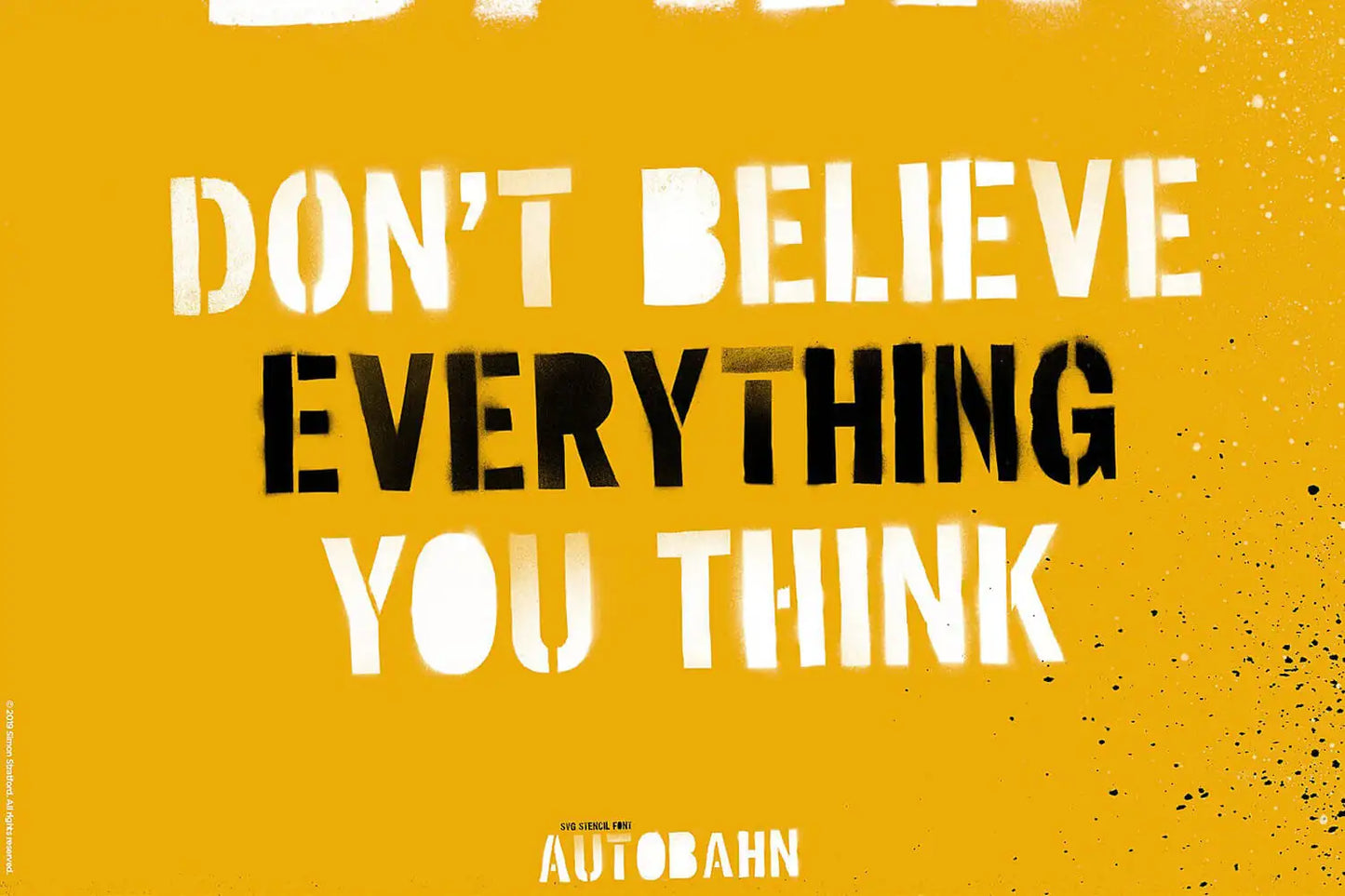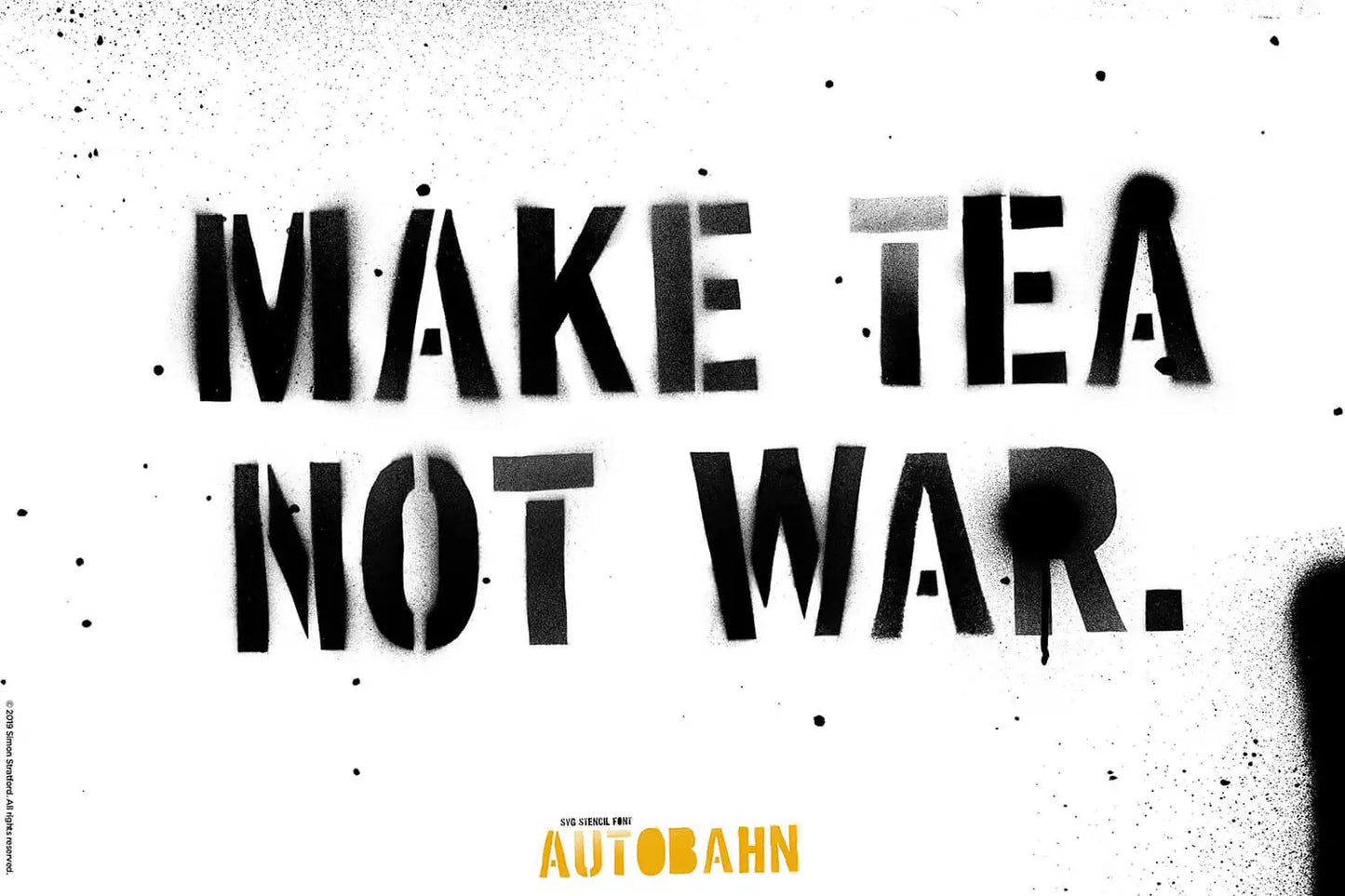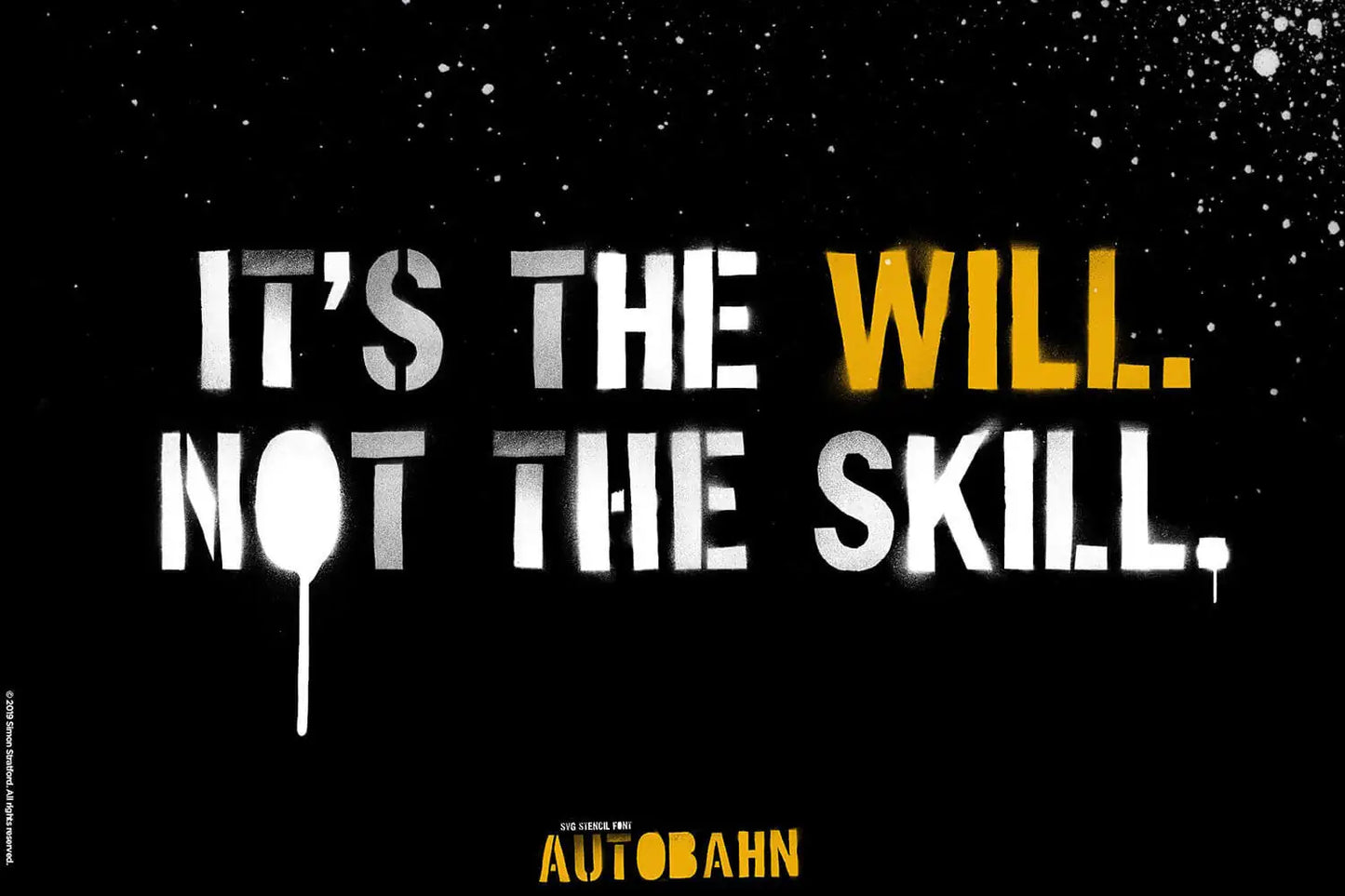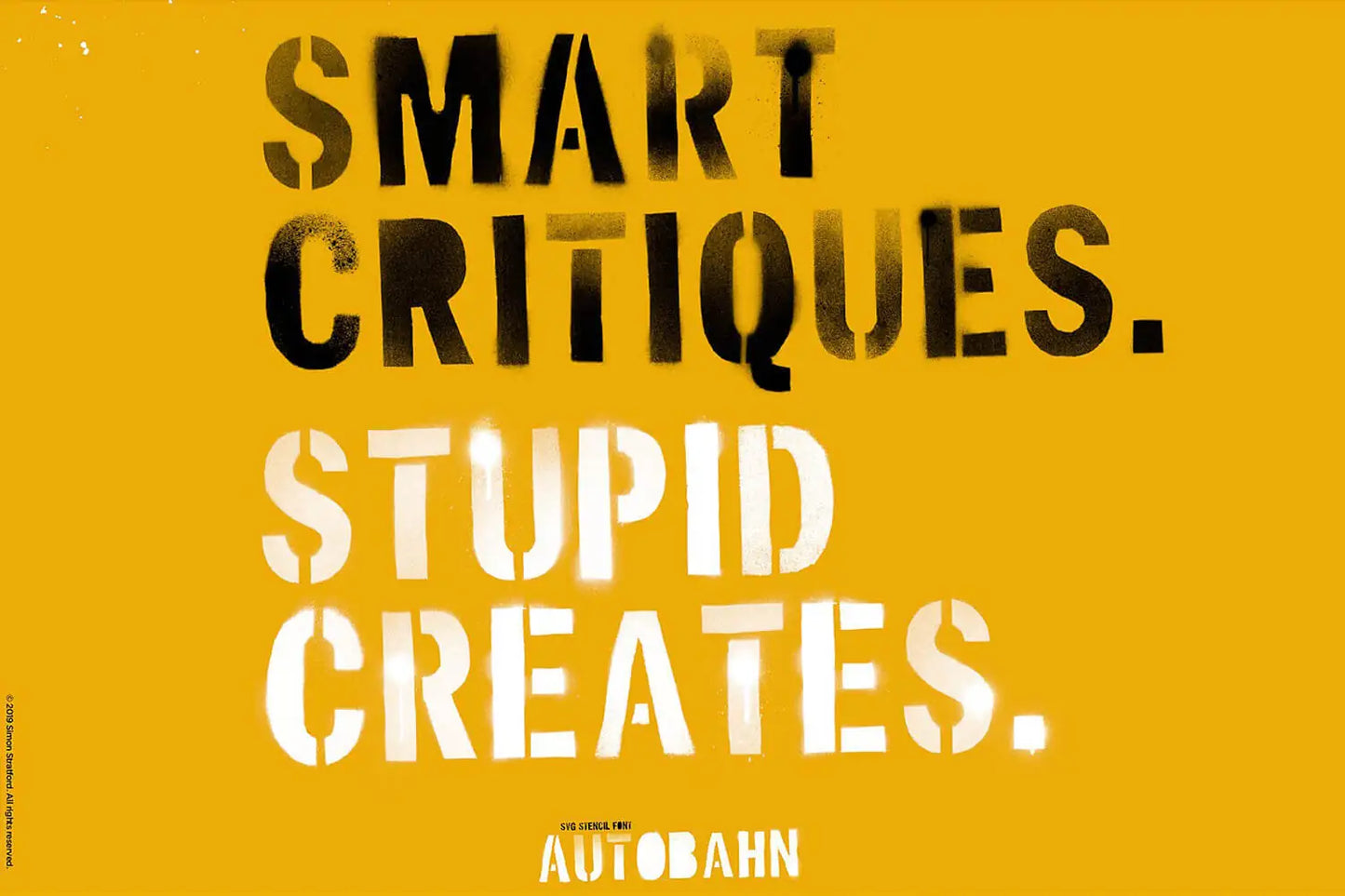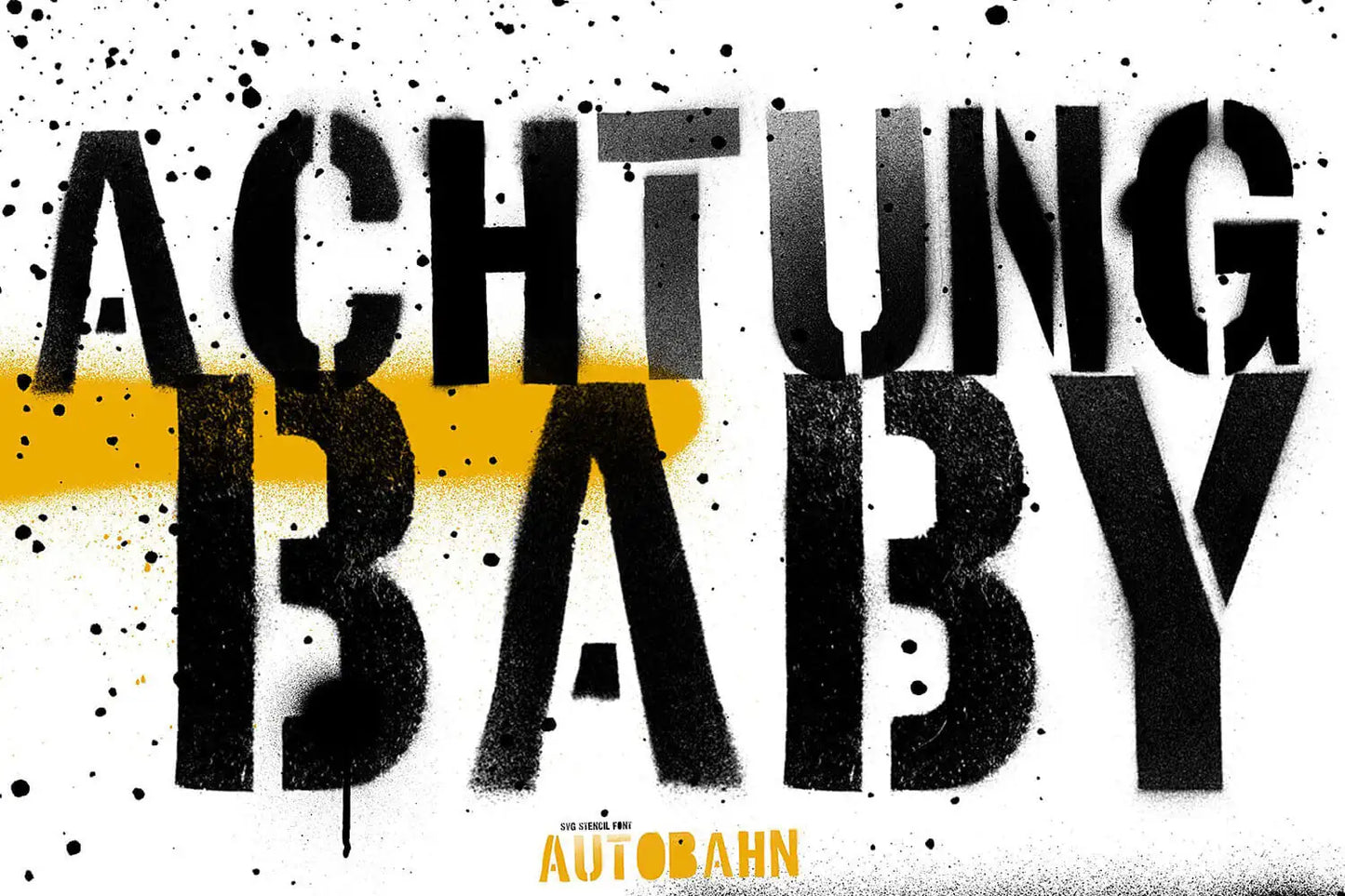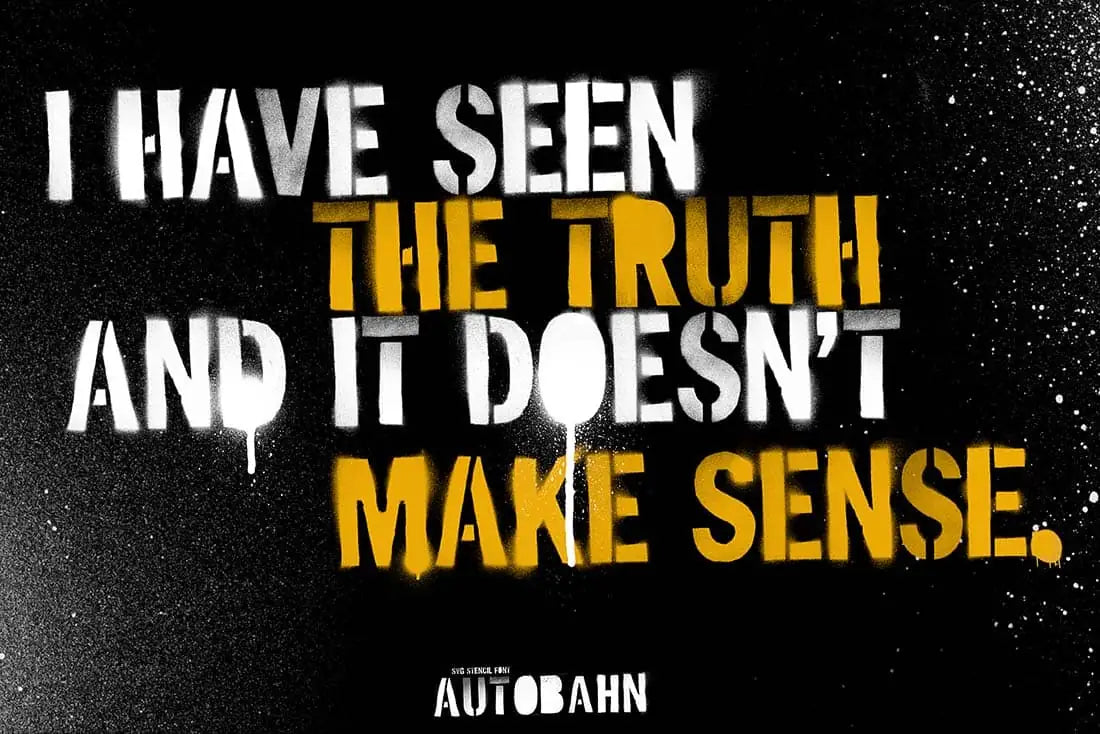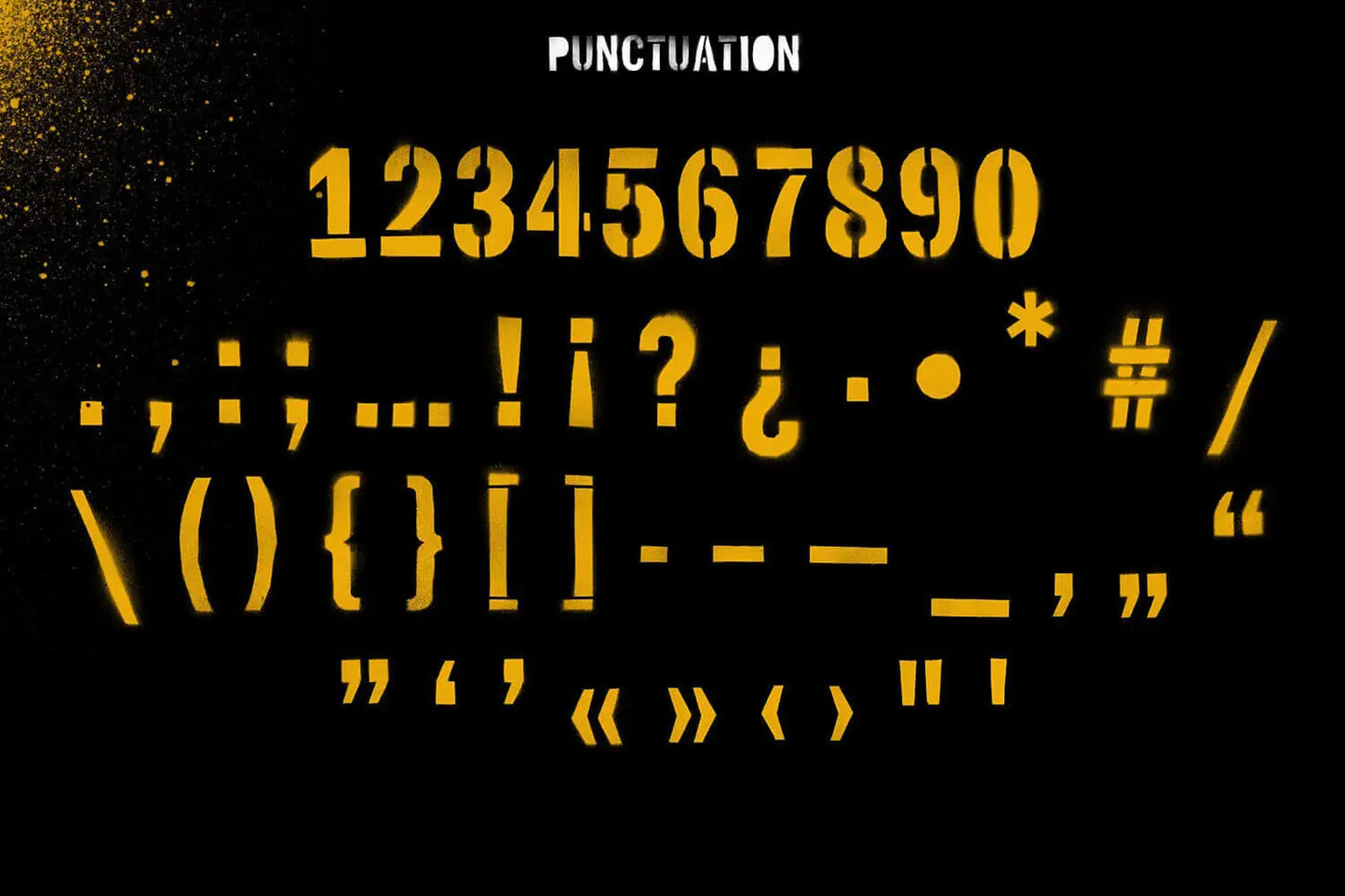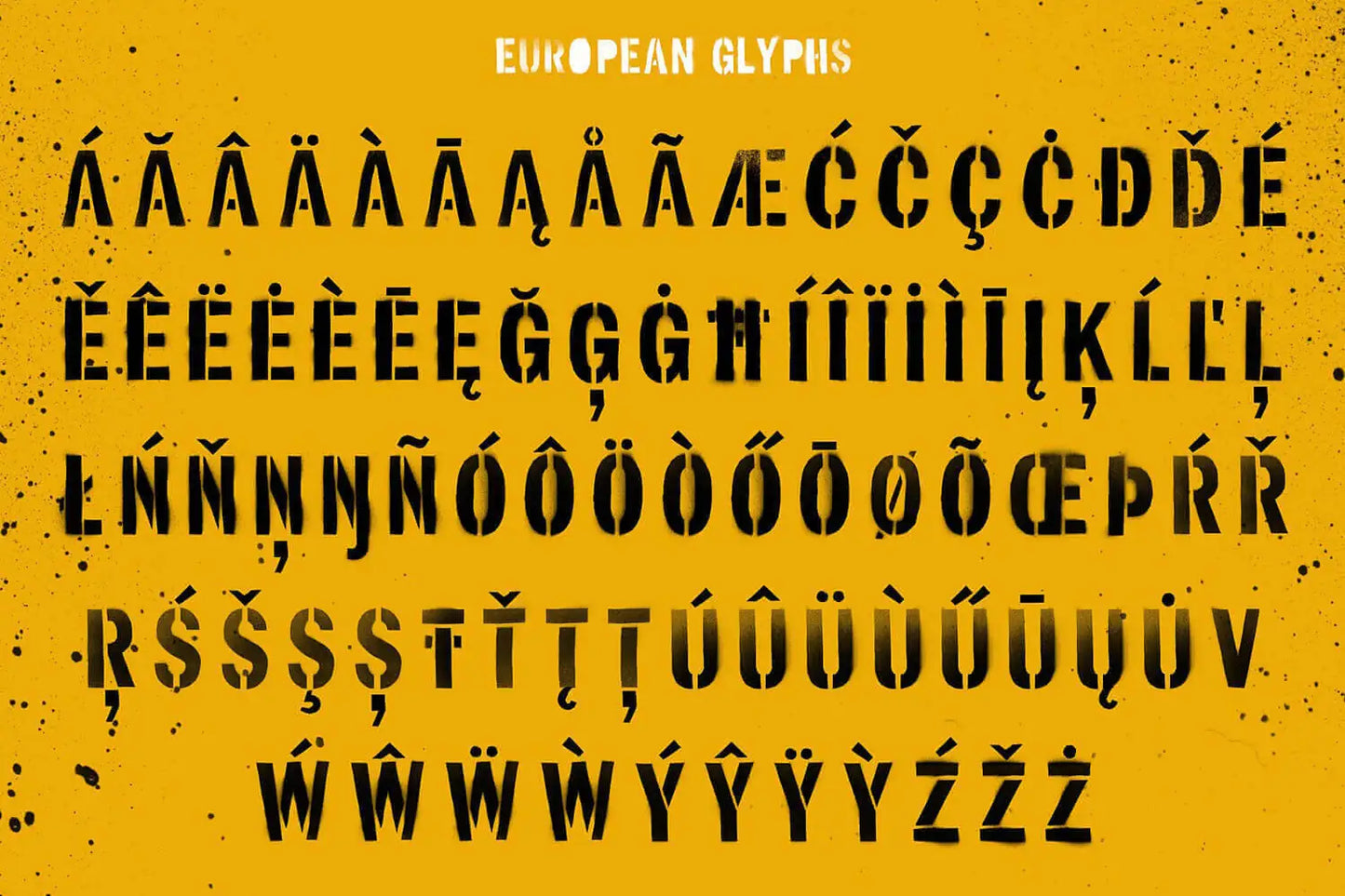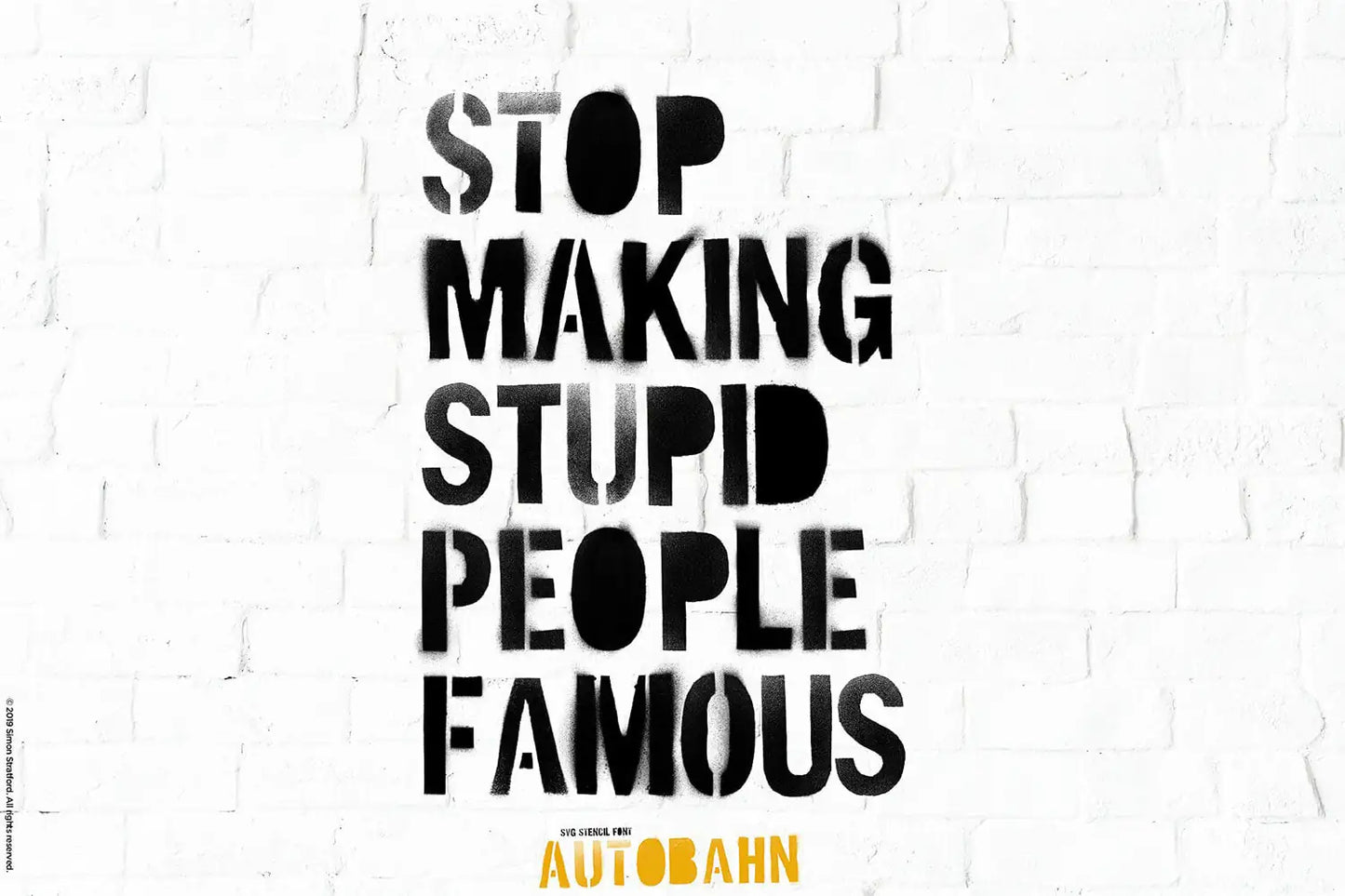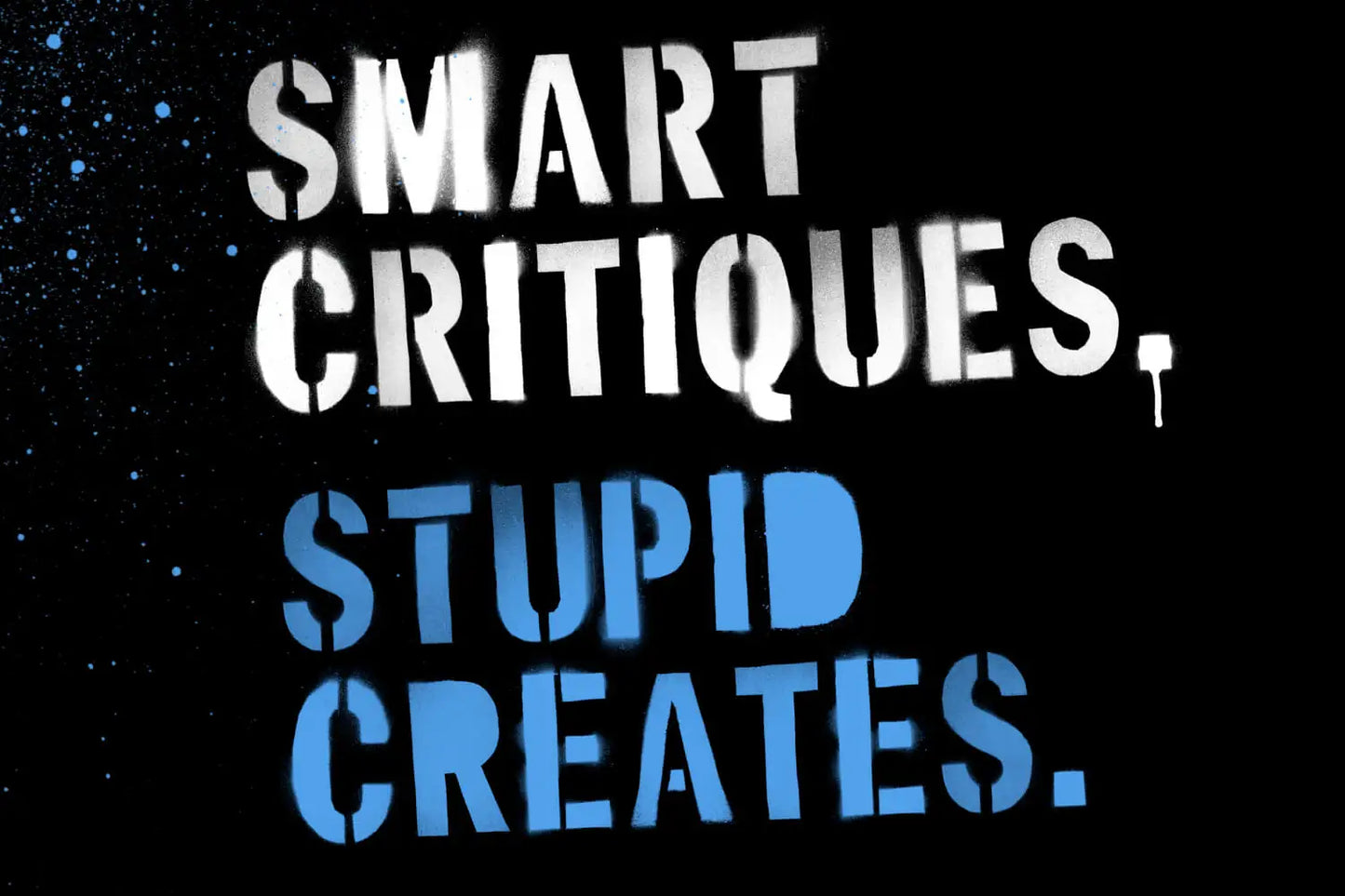
Autobahn stencil
About Autobahn stencil
Autobahn is a display stencil font that is about as realistic spray paint stencil font as you can get (easy for me to say). Thanks to the new OpenType-SVG bitmap technology Autobahn has an incredible amount of detail—it blows the traditional vector font out of the water.
Rather than just one solid colour, OpenType SVG Bitmaps fonts allow full-colour bitmaps. No more solid colour and full transparency, this typeface has bags of detail.
Autobahn stencil font
Autobahn was created with real cardboard stencils that I cut out by hand. Yup using a stencil and cardboard my little fat digits really took the brunt of creating this font.
I then used black acrylic spray paint to create every glyph. Autobahn intentionally sets out to emulate modern graffiti lettering.
The typeface is far from flawless. Some letters have a perfect spray look, some have tons of overspray or paint splatters. The real spray paint gives it a unique texture like it’s damaged and rough.
Autobahn is edgy, messy and distressed just like it would be in the real world.
The typeface is ideal for getting that bold military style or the urban street look. Excellent for packaging, album covers, advertising, headlines, book covers and posters.
It will definitely give your designs that unique graffiti look.
Bonus real spray paint drips
Autobahn is a Unicase typeface
Autobahn is a unicase font, which means it has no lowercase letters. Everything is in uppercase. It does contain alternative uppercase letters in the lowercase a-z and a few more additional glyphs with missing counters. So each A-Z letter has at least two alternatives to give the font a more random look.
If the font Autobahn were a celebrity
If the font Autobahn were a celebrity, it would embody the rebellious and unconventional spirit of Kurt Cobain, the iconic frontman of Nirvana. Just as Kurt Cobain was known for his raw and unapologetic approach to music, Autobahn font captures a similar sense of chaos and edginess in the world of typography.
OpenType Features: Stylistic Alternatives